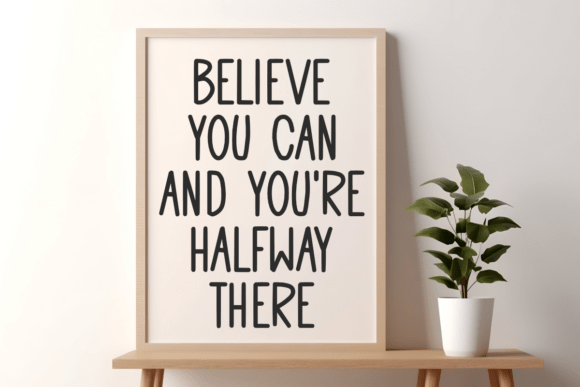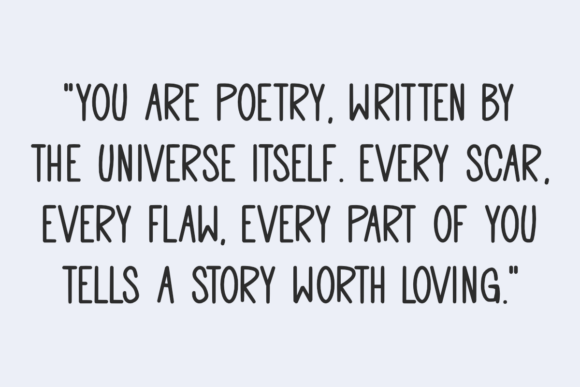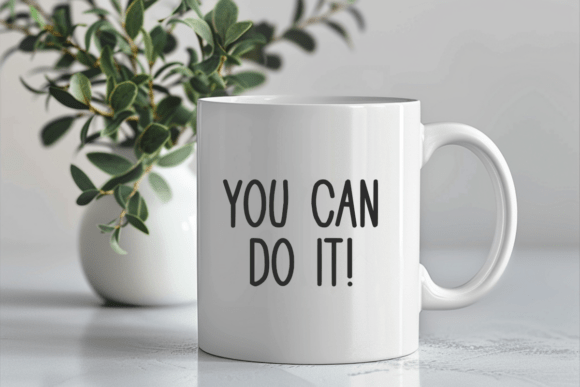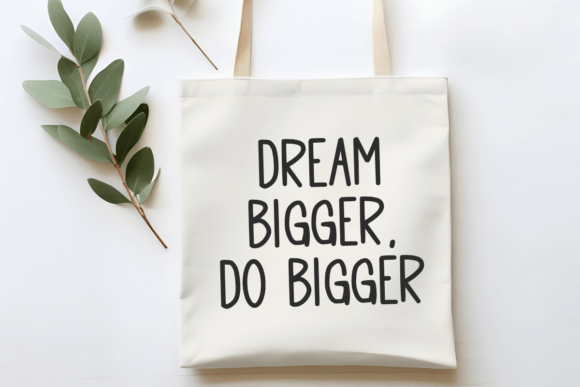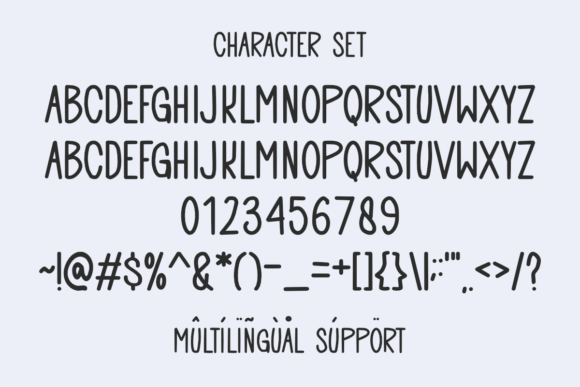
The Cheerful Font: A Natural Handwritten Delight for Creatives
Have you ever been in the middle of a design project, and suddenly, you’re stuck on finding the perfect font? I recall a recent experience where I was working on a custom journal design for a client, and I just couldn’t find a font that captured the warm, friendly vibe I was going for. That’s when I stumbled upon the Cheerful font, and it instantly became my go-to choice. In this article, I’ll share my journey with this beautiful font, its features, and how you can make the most of it in your designs.
A Personal Review of Cheerful Font
I’m excited to share my honest review of the Cheerful font, highlighting what I love and a few minor quirks to keep in mind.
- ✨ Natural and Organic Design: The Cheerful font boasts an original, handwritten design that feels both natural and organic. It’s perfect for creating a personal touch in various projects.
- ✅ Versatility: This charming font is suitable for a wide range of applications, including KDP interiors, notes, planners, journals, diaries, notebooks, printables, notepads, daily planners, trackers, schedules, organizers, calendars, templates, and stationery.
- 💫 Easy to Read: The font’s clear and flowing script makes it easy to read, even in smaller sizes.
While the Cheerful font is fantastic, there are a few minor things to consider:
- ⚠️ Limited Formality: Given its handwritten nature, the Cheerful font might not be the best choice for very formal or professional projects.
- 🤔 Glyph Variety: While the font comes with a range of glyphs and stylistic alternates, it might not have every special character or symbol you need for specific projects.
The Story Behind Cheerful Font
The Cheerful font was designed with the intention of creating a friendly, approachable typeface that could be used across various creative projects. Inspired by the natural flow of handwriting, the designer aimed to craft a font that feels both personal and engaging. Whether it’s for a journal, planner, or decorative stationery, Cheerful brings a warm, inviting touch to any design.
Q: Does the Cheerful font come with a wide range of glyphs?
A: Yes, the Cheerful font includes a variety of glyphs and stylistic alternates, allowing for a good degree of customization in your designs.